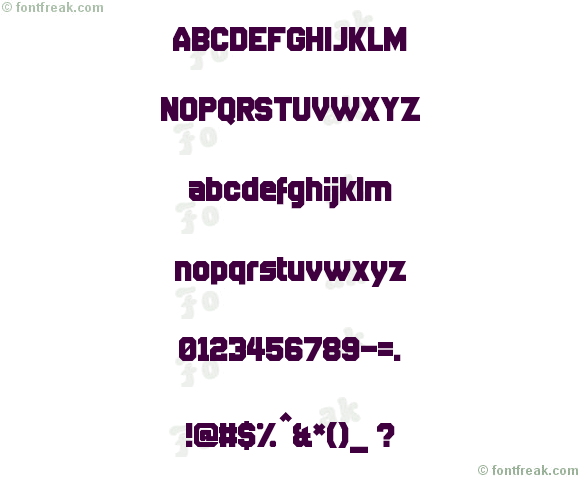
Disparador Regular
Disparador Filled Regular
Disparador Regular, designed by Tobias Sommer in 2009, is a striking display font that captures attention with its bold, filled characters. This typeface falls under the decorative category, characterized by its unique, modern aesthetic. The stroke weight is substantial, providing a strong visual presence, while the uniformity in spacing enhances readability. The absence of excessive contrast in the letterforms gives it a cohesive look, making it ideal for various design applications.
The font's distinctive style makes it particularly suited for eye-catching use cases. It excels in creating impactful movie posters, where bold titles need to stand out against dynamic visuals. Additionally, Disparador Regular is perfect for branding elements such as headlines in restaurant menus, where a modern and inviting feel can enhance the dining experience. Graphic designers can also leverage this font for event flyers, giving a contemporary twist to announcements and promotional materials. For small business owners, utilizing this typeface in logos or advertisements can effectively convey a sense of modernity and creativity.
Targeting graphic designers, small business owners, and content creators, Disparador Regular offers versatility while maintaining a unique flair. Its design allows for a wide range of applications, making it an attractive choice for anyone looking to elevate their visual communication.
What sets Disparador Regular apart is its ability to blend modernity with readability, making it an ideal choice for those seeking to make a bold statement in their projects. With its free license, users can enjoy the benefits of this distinctive typeface without any financial commitment. For those interested in incorporating this eye-catching design into their work, the Disparador Regular font free download is an excellent opportunity to explore its potential.